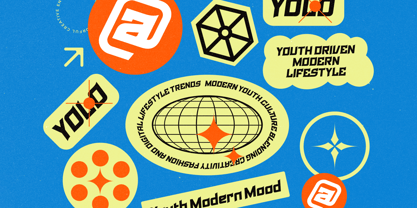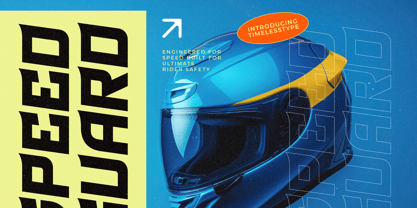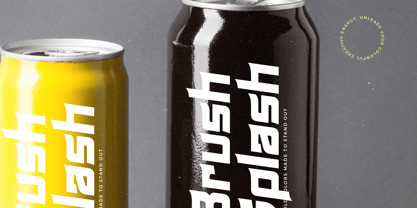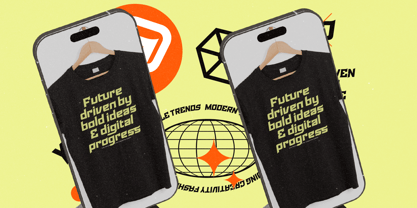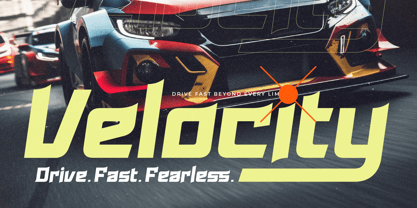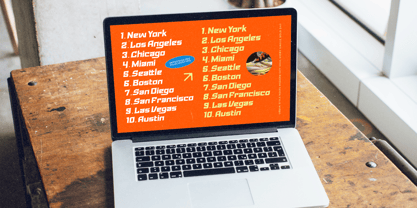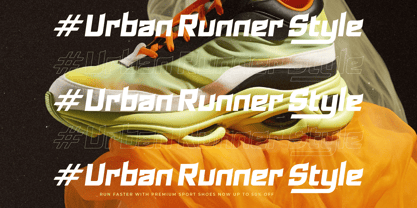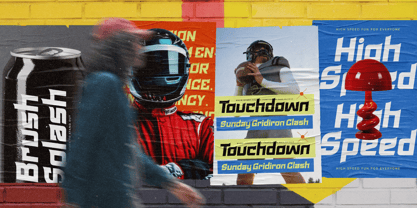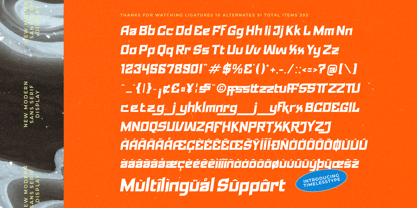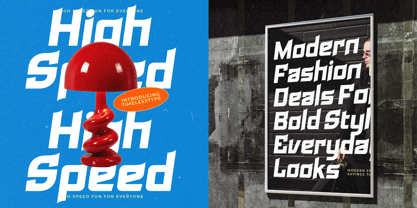
Gearmoff
von Timelesstype Studio
Die Schriftfamilie Gearmoff wurde von Heru Utama Putra entworfen und von Timelesstype Studio veröffentlicht. Gearmoff enthält 2 Stile und Familienpaketoptionen. Mehr über diese Familie
Gearmoff is a sharp, modern sans-serif display font built for bold, high-energy visuals. With its angular cuts, futuristic shapes, and tight geometric structure, this typeface delivers a strong sci-fi and industrial vibe—perfect for posters, esports branding, tech products, automotive visuals, gaming covers, and retro-futuristic layouts. The font includes 10 ligatures and 51 alternates, giving you plenty of flexibility to craft unique titles and impactful branding. Gearmoff is loud, stylish, and unmistakably modern—engineered for creators who want their typography to hit hard.